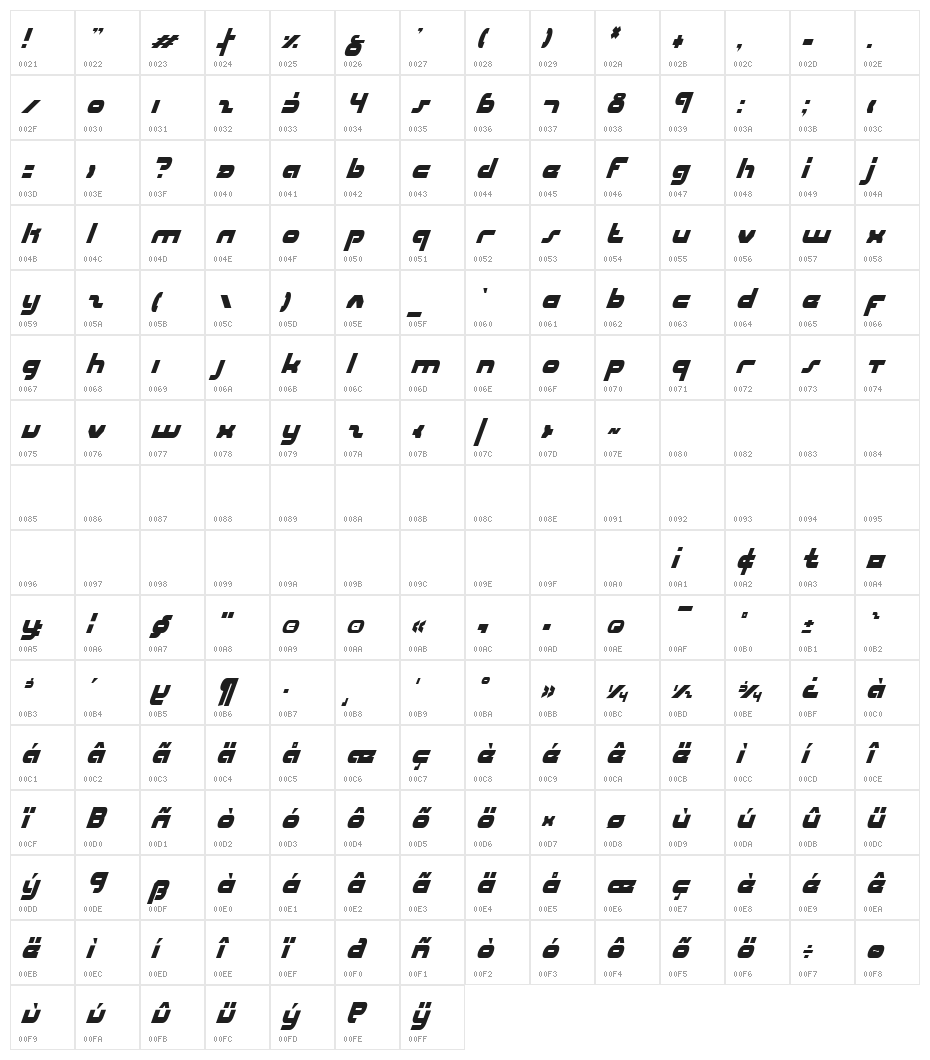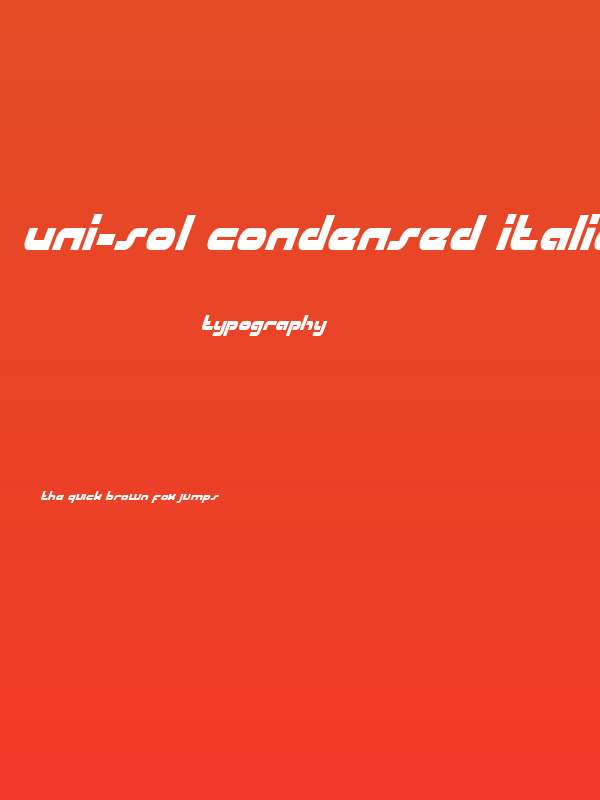
uni-sol condensed italic Font
uni-sol condensed italic Description
This font features a bold, italicized style with a distinctly modern and futuristic appearance. The characters are condensed, giving a sleek and compact look, while maintaining a high level of readability. The strokes are thick and consistent, providing a strong visual impact. The italic slant adds a dynamic and forward-moving feel, making it suitable for projects that require a sense of motion or progress. The overall design is clean and geometric, with sharp angles and edges that contribute to its contemporary aesthetic.
| Proposed Projects | Ideal for technology branding, sports team logos, futuristic posters, and dynamic headlines. |